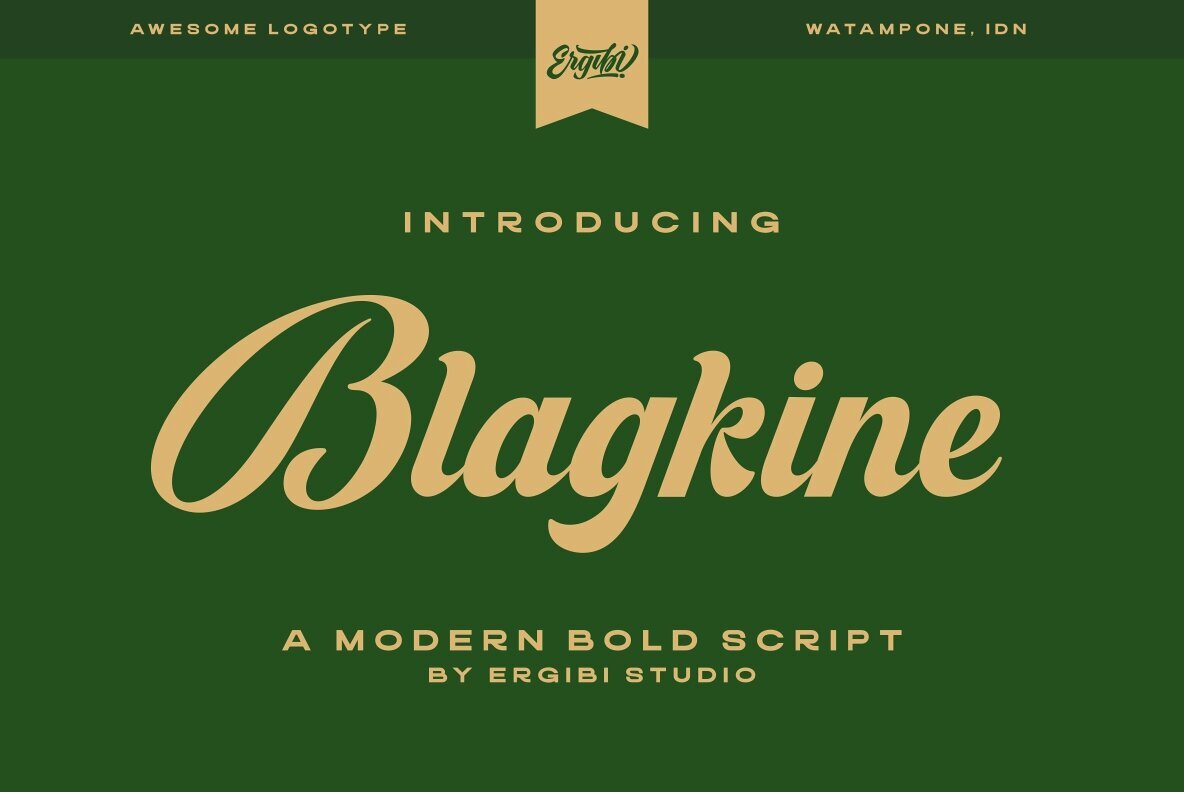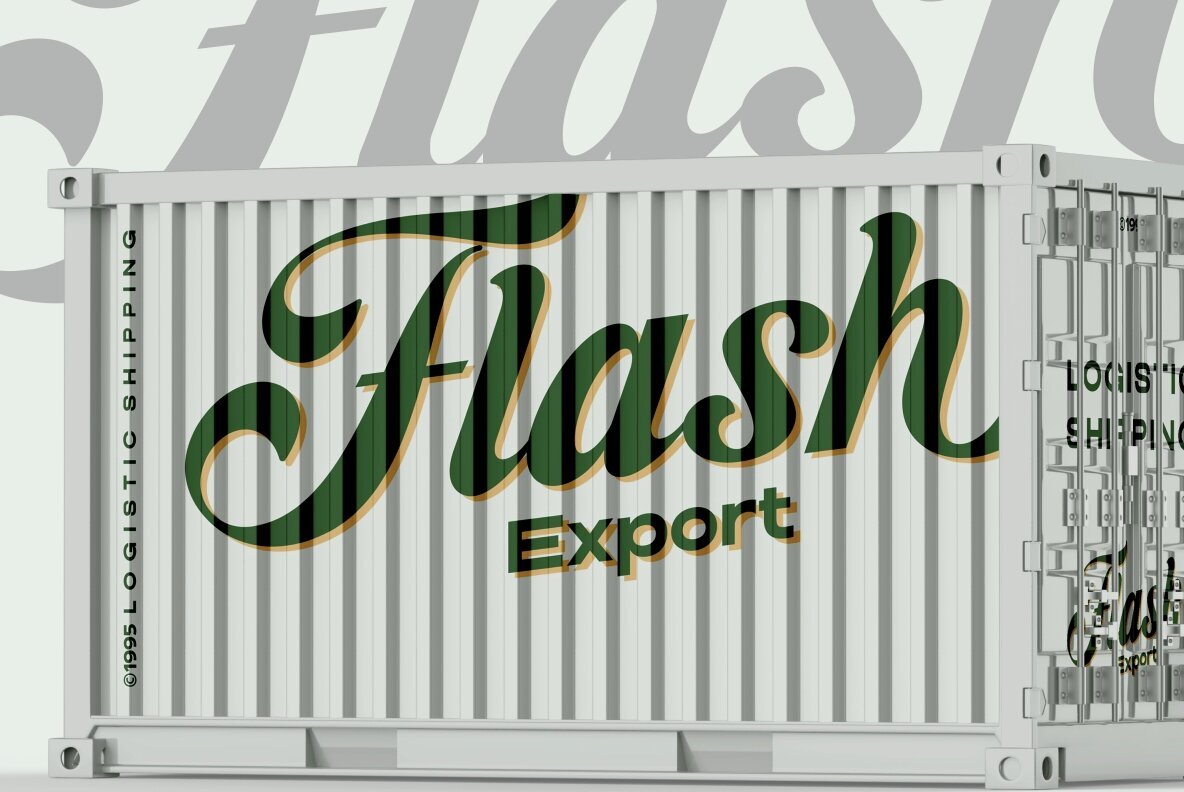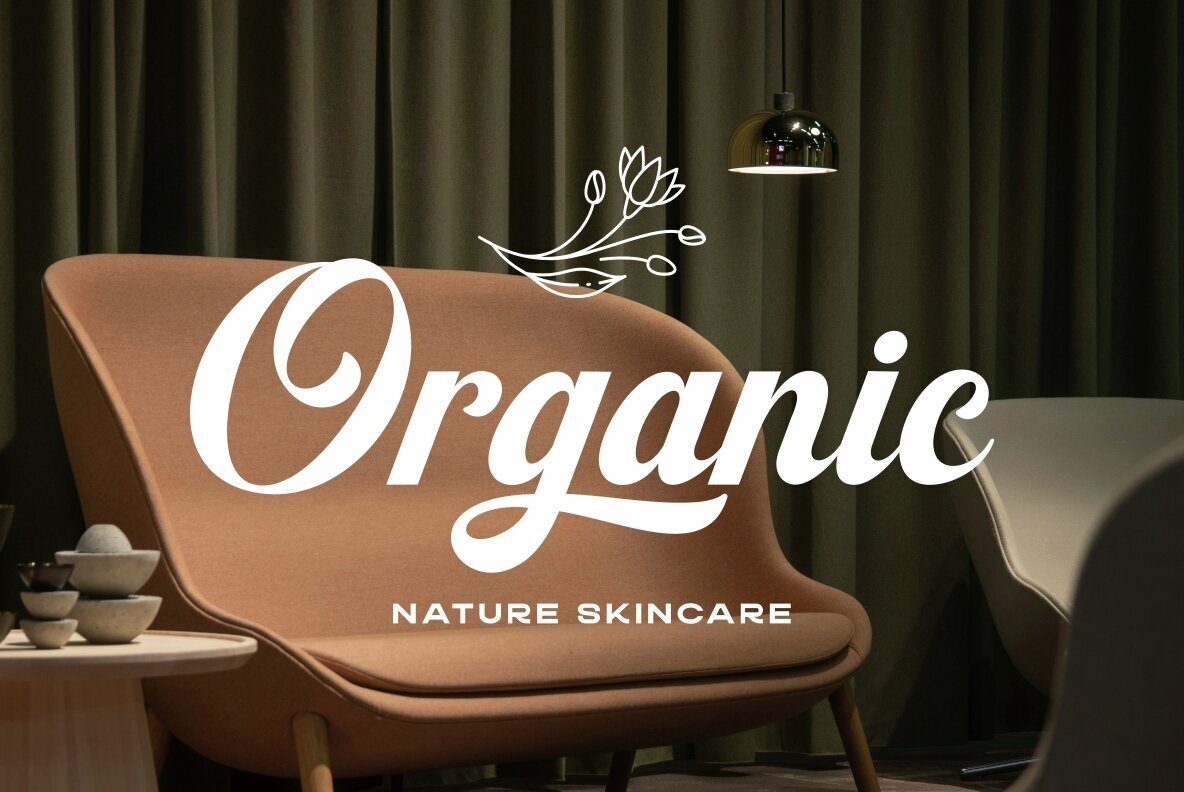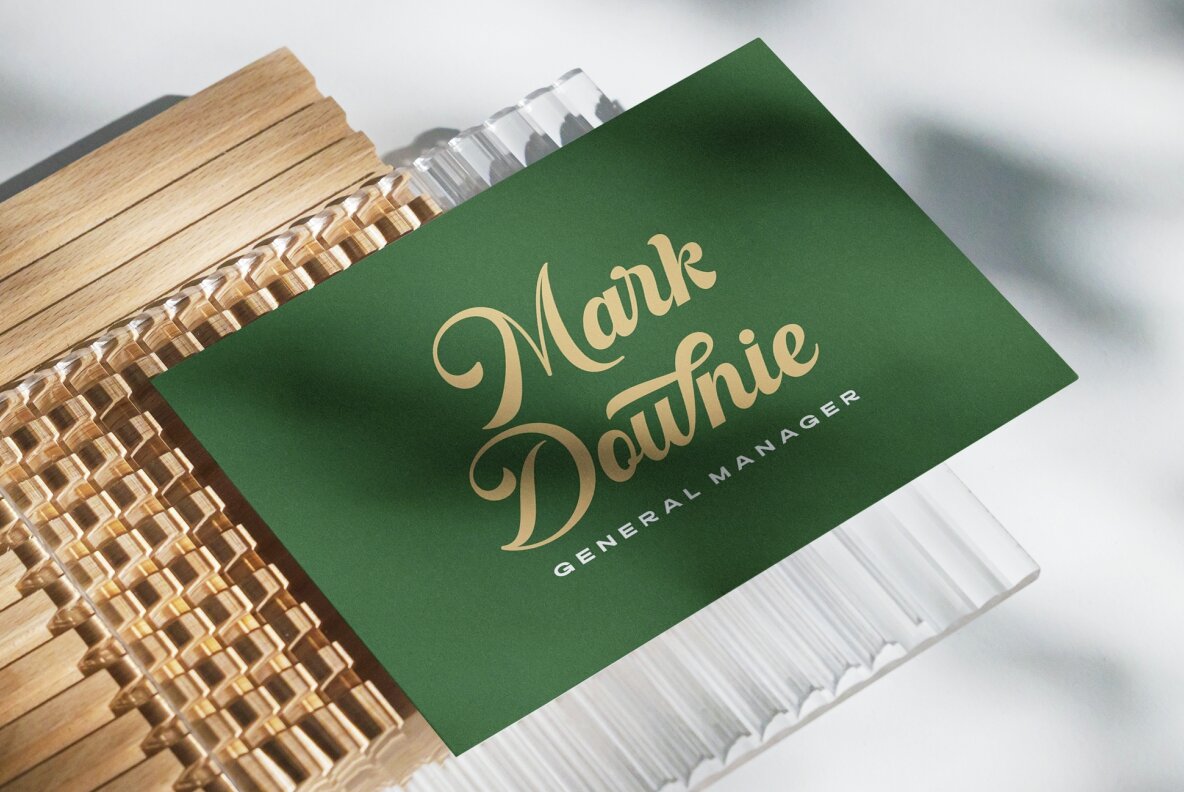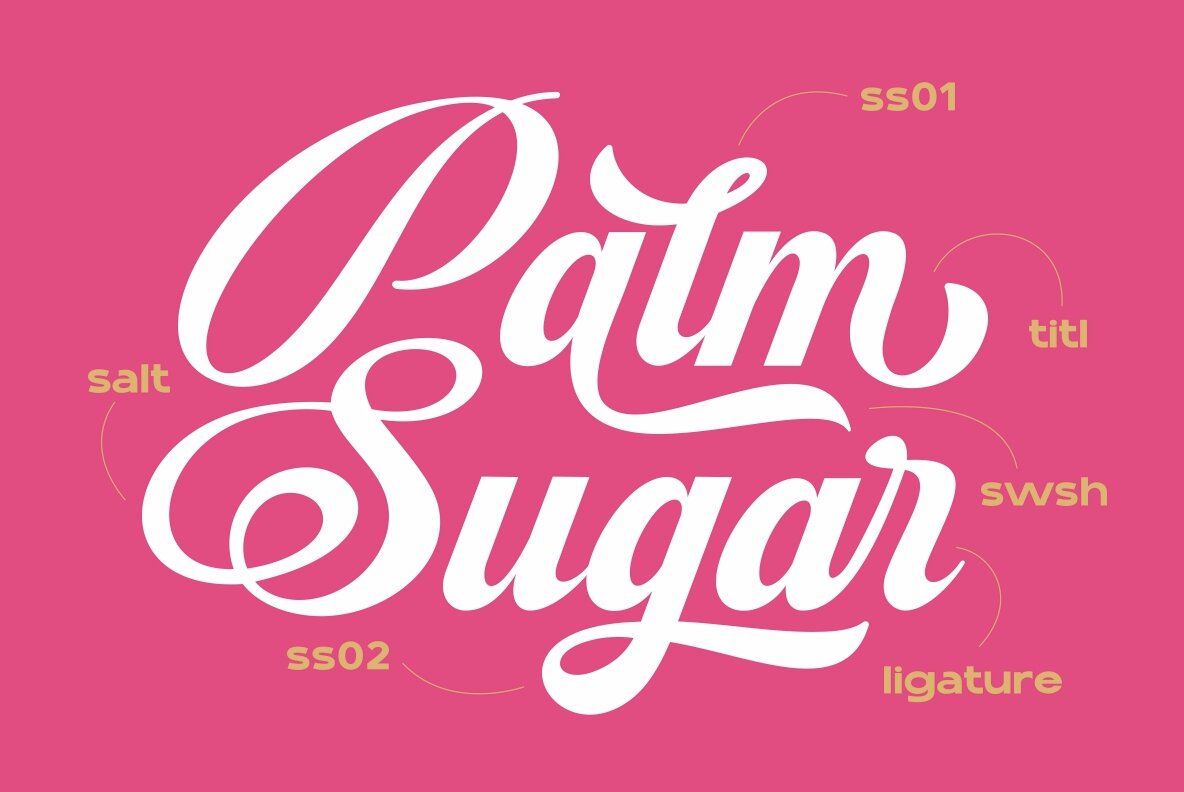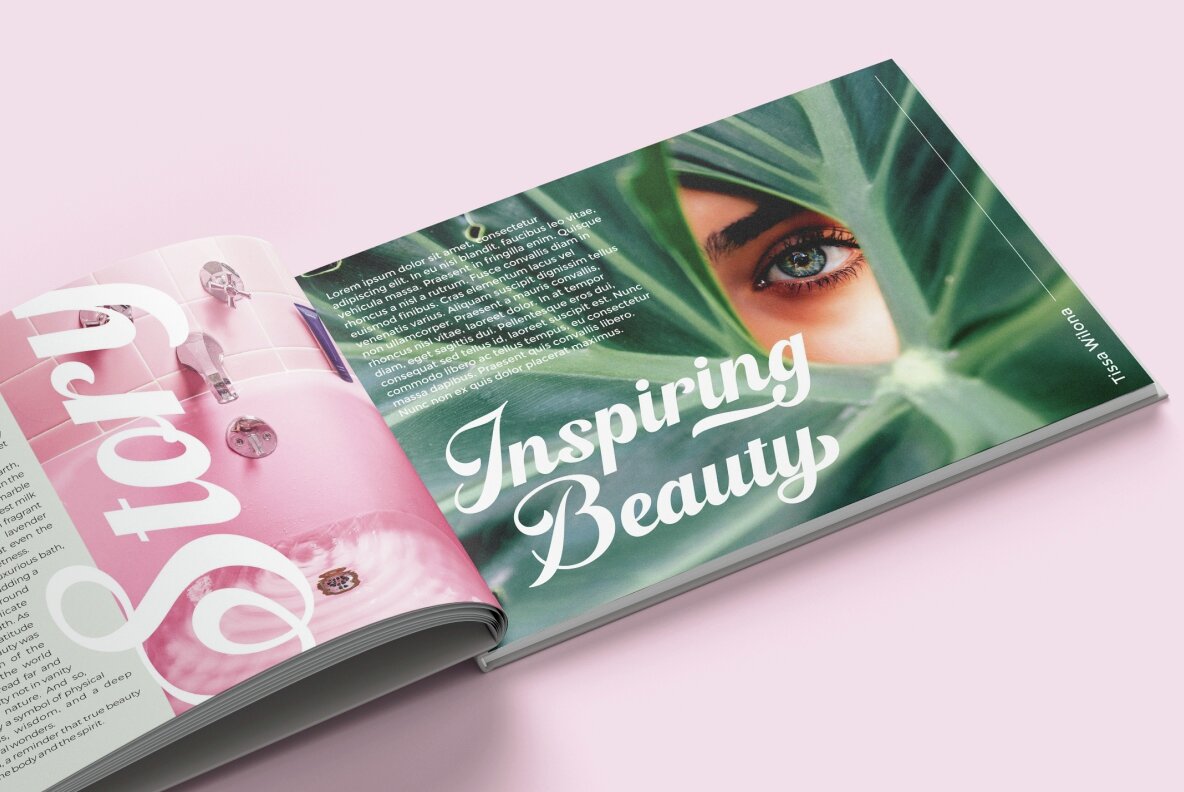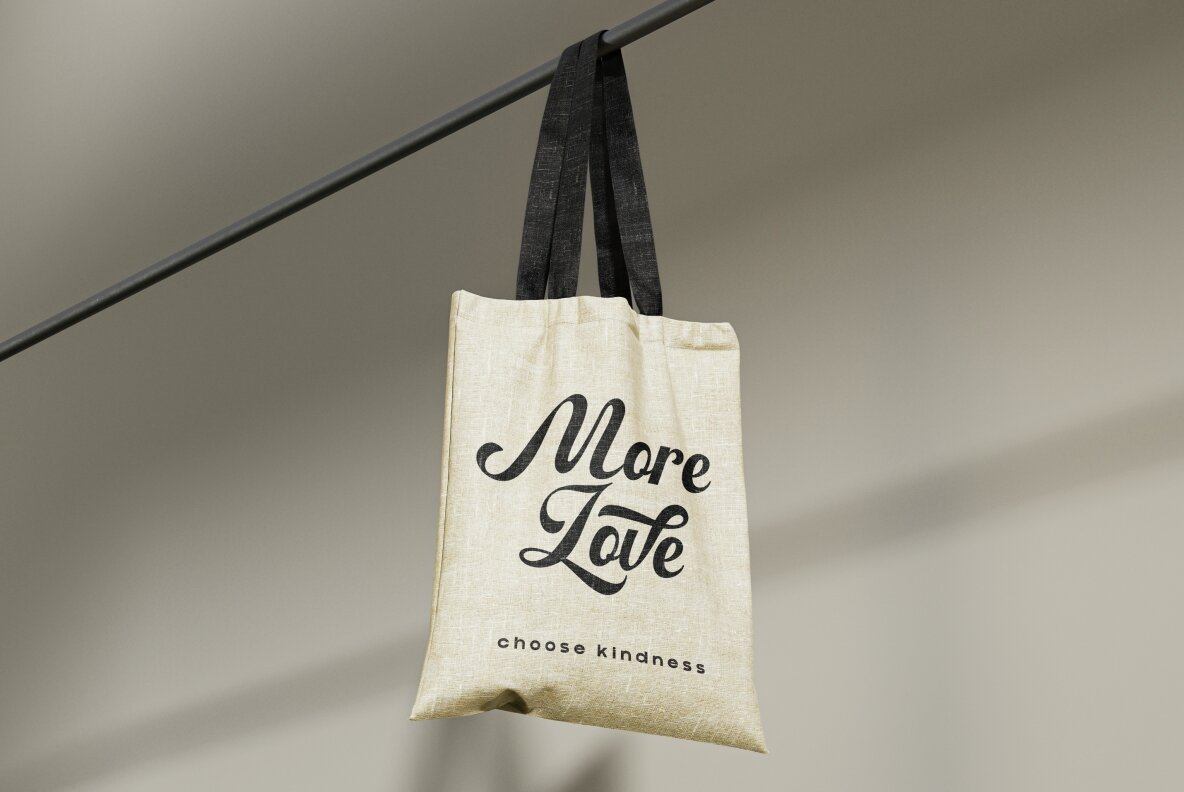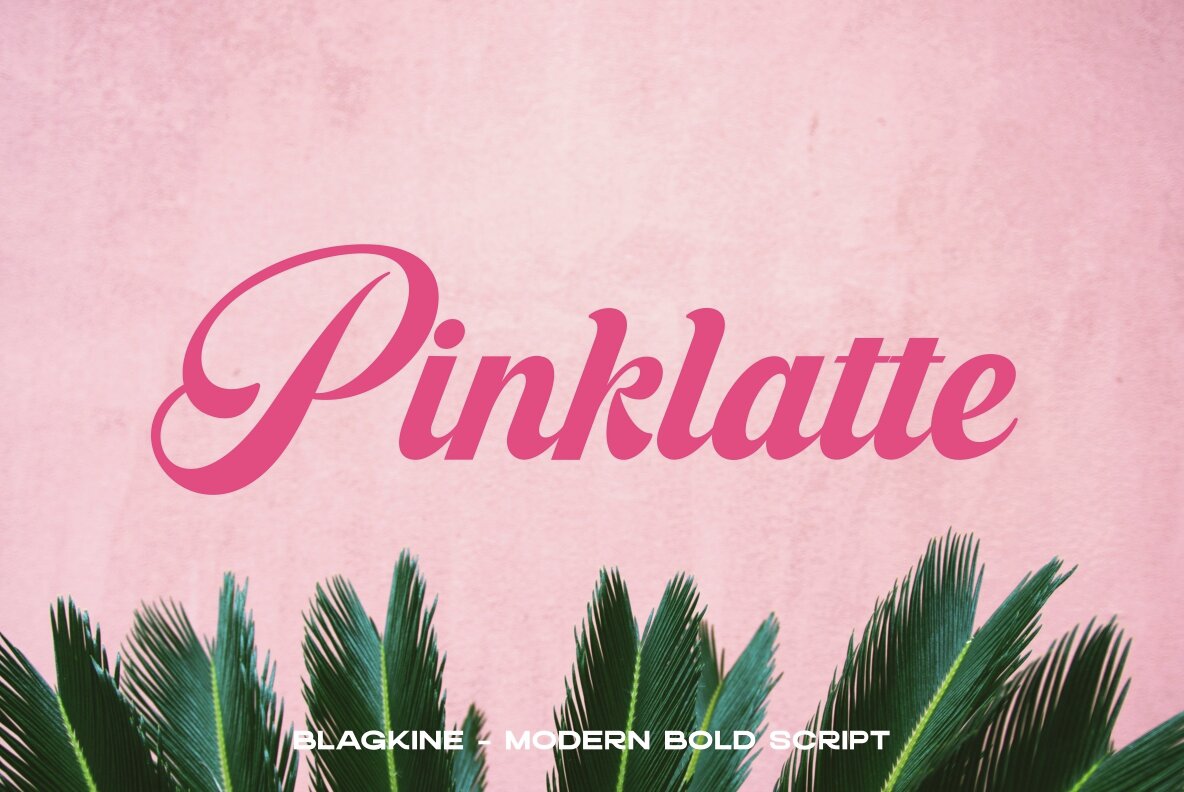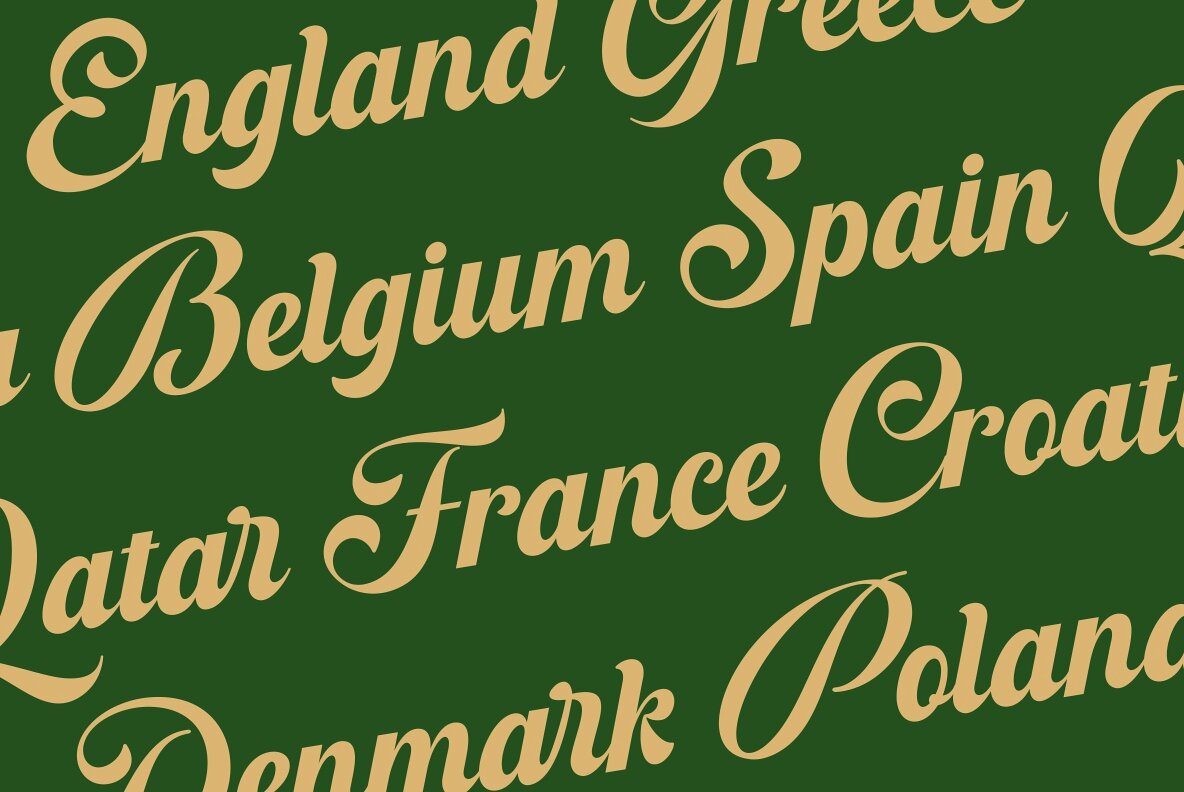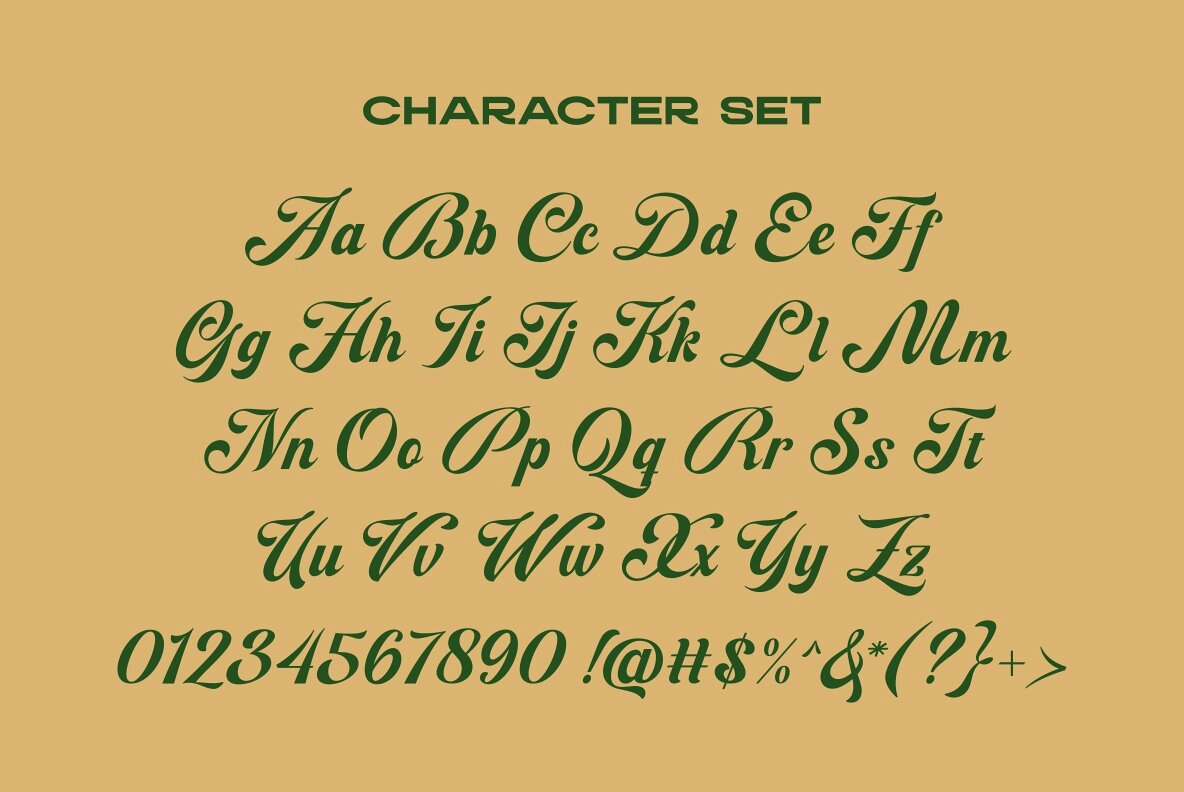
Blagkine
Blagkine is a bold script font with a classic style that exudes elegance and versatility. This font is enriched with stylistic sets, ligatures, contextual alternates, and supports multiple languages, making it ideal for a variety of creative projects. Its unique and striking appearance makes Blagkine a perfect choice for creating impactful logotypes, branding, product packaging, invitations, apparel design, web design, magazine covers, and book titles.
Incorporate Blagkine into your designs to infuse them with a touch of bold sophistication. Key features include standard glyphs, ligatures, international accents, and compatibility with both PC and Mac systems. Its simple installation ensures you can start creating with ease. Let Blagkine elevate your projects by adding an eye-catching element to your design toolkit.